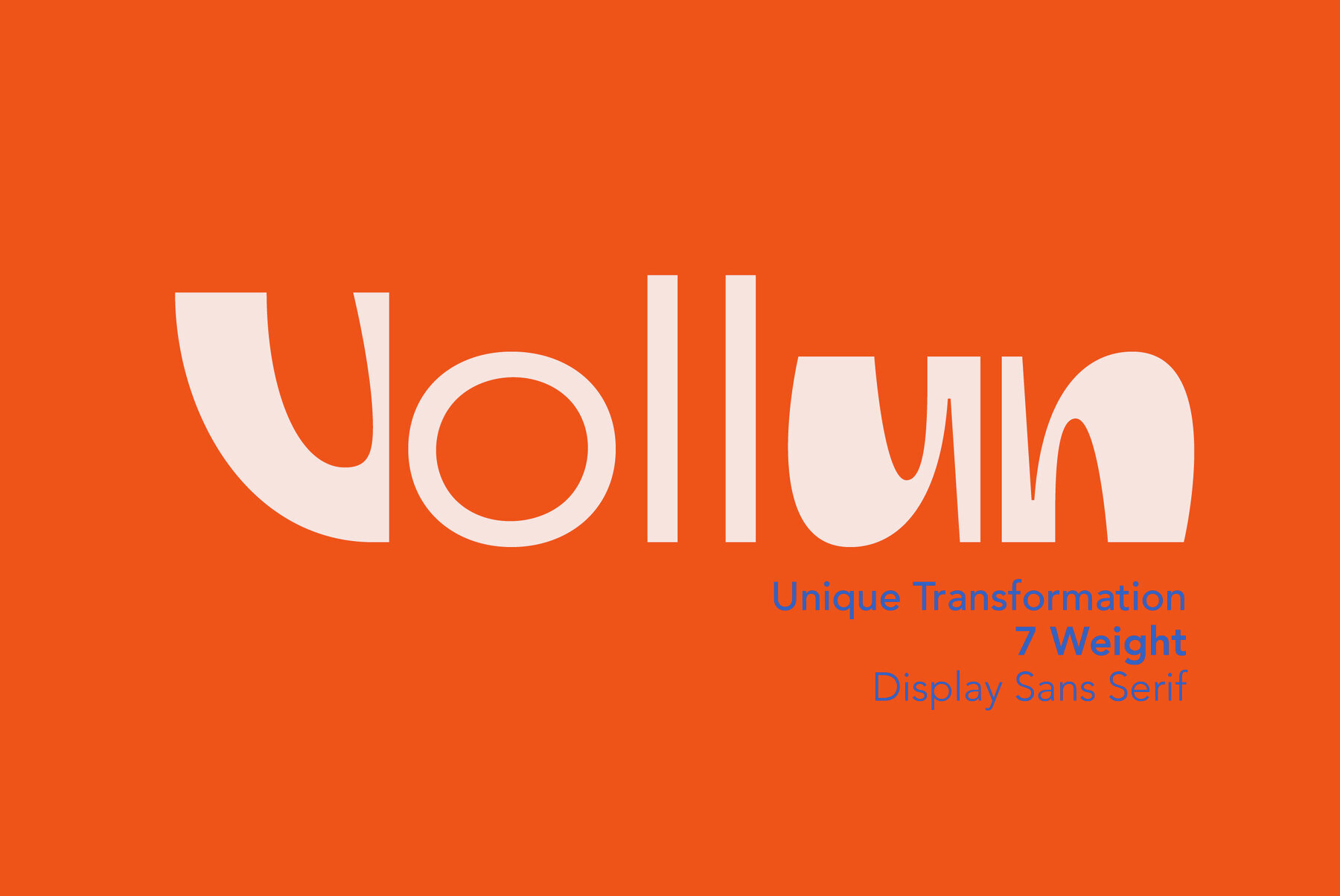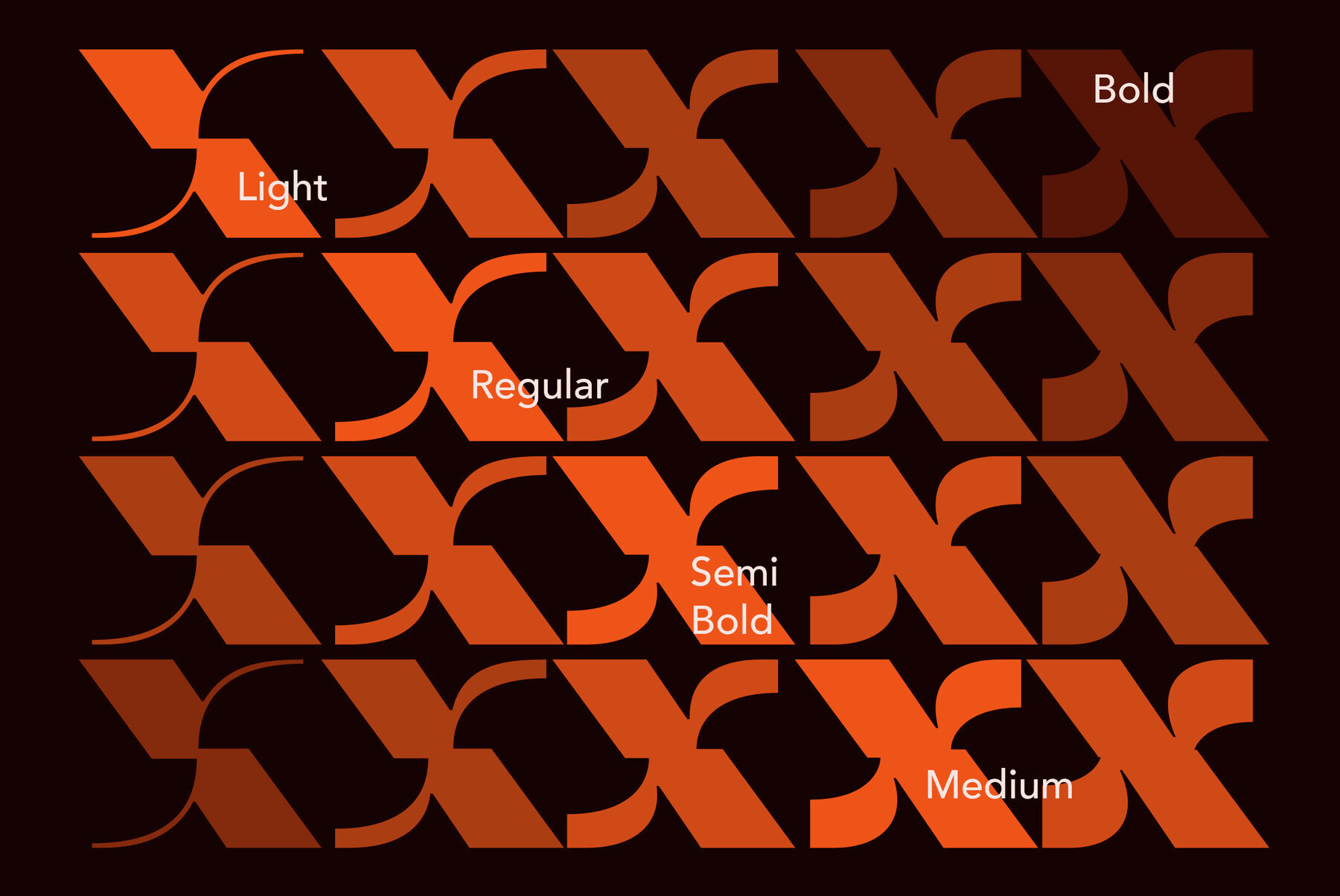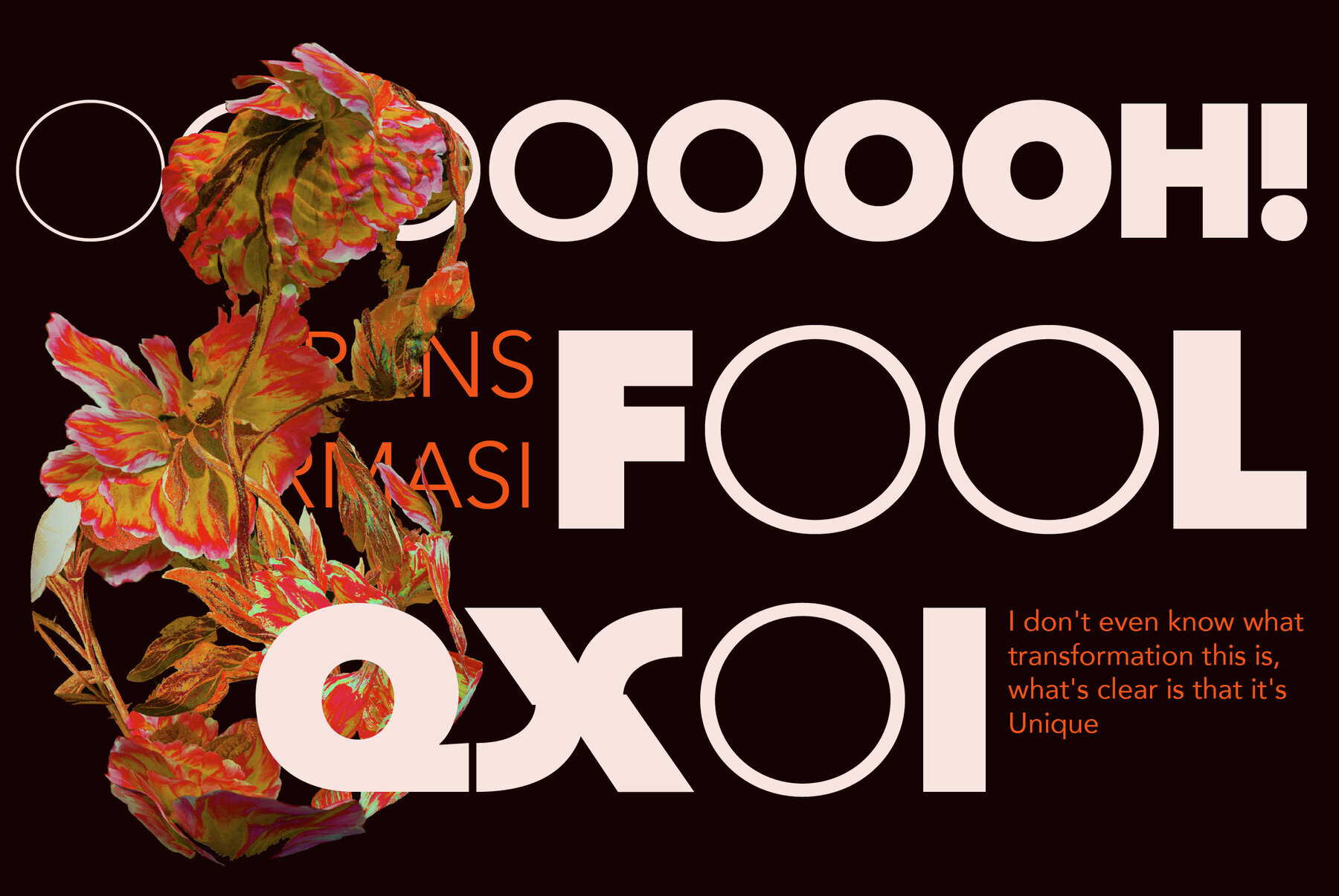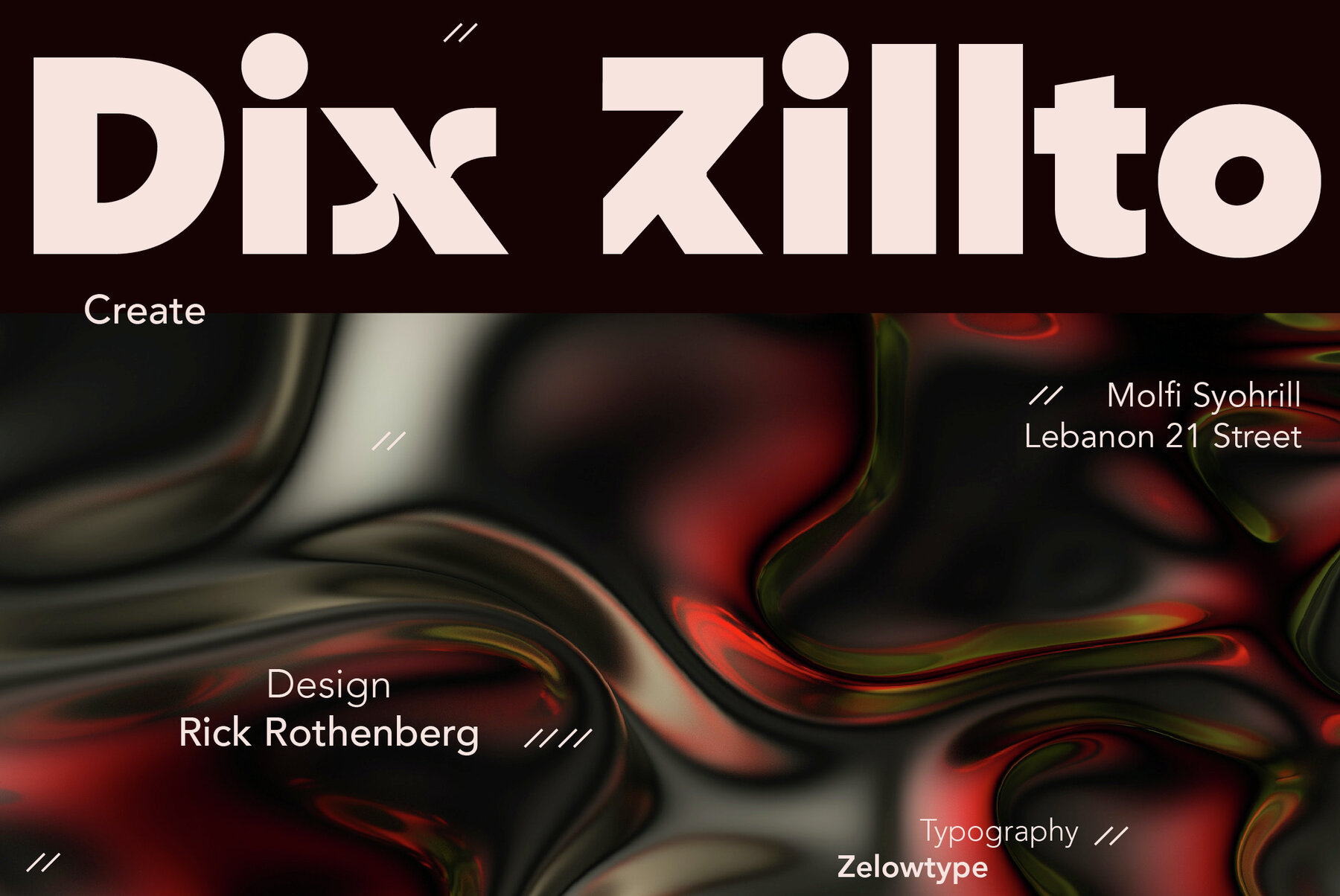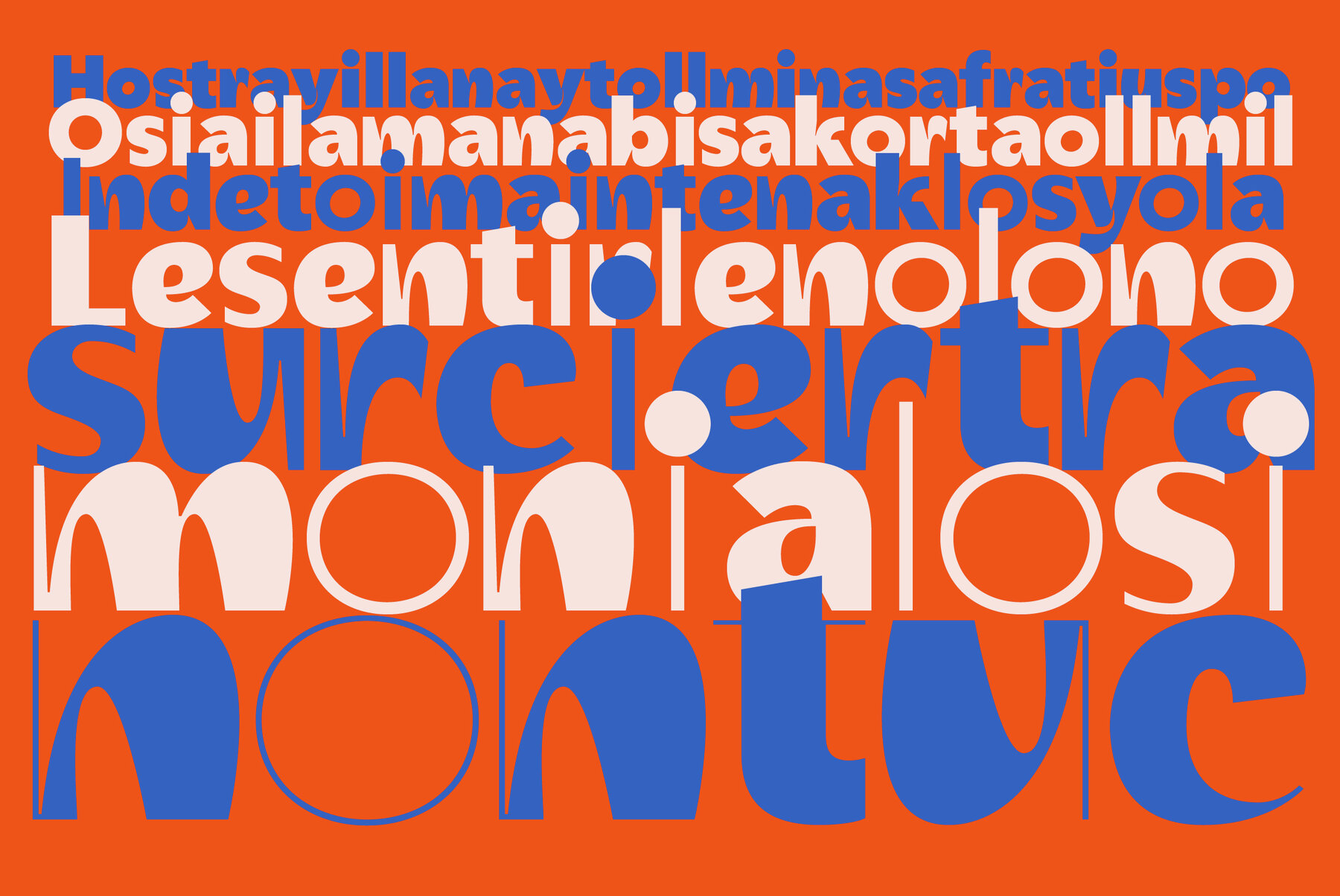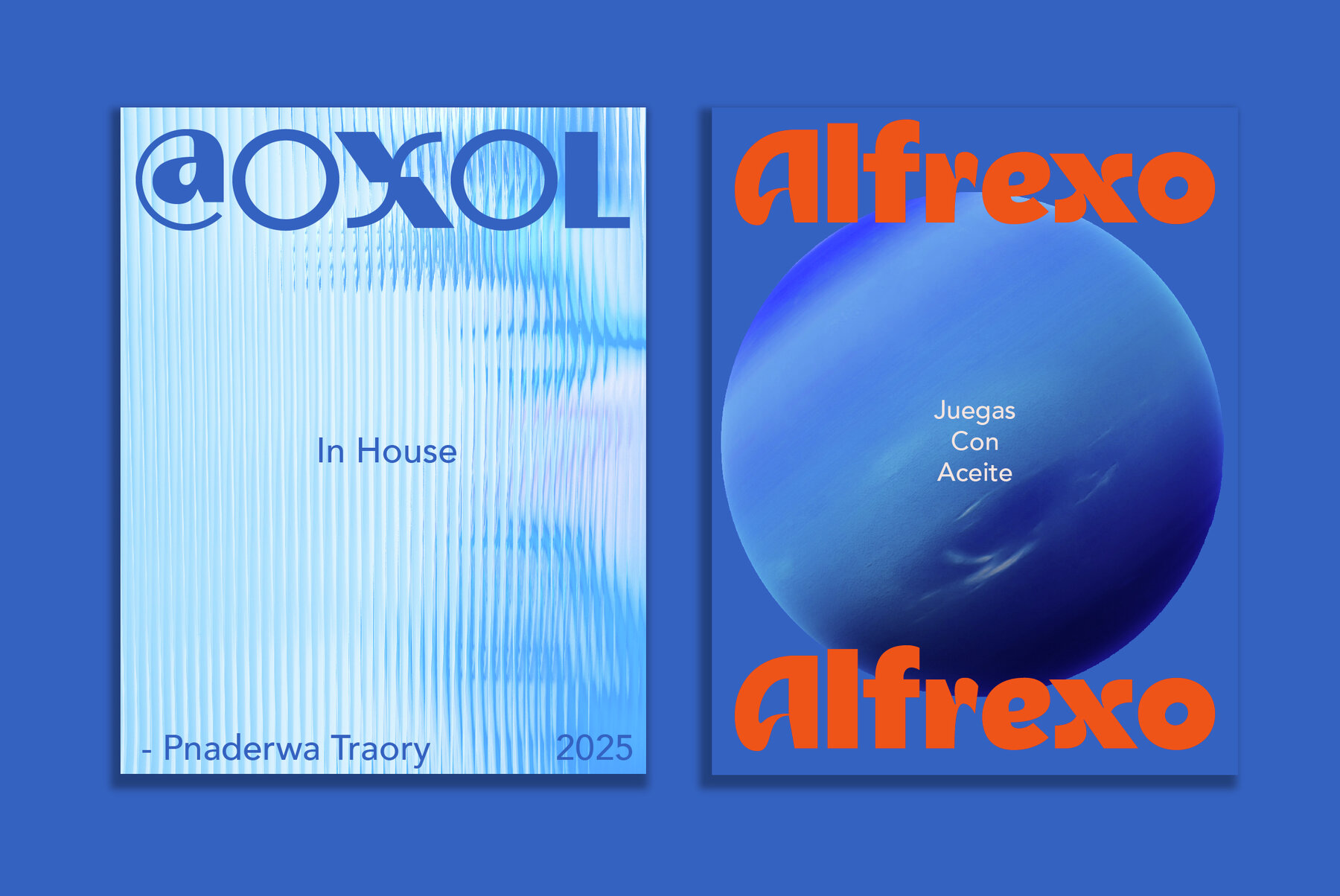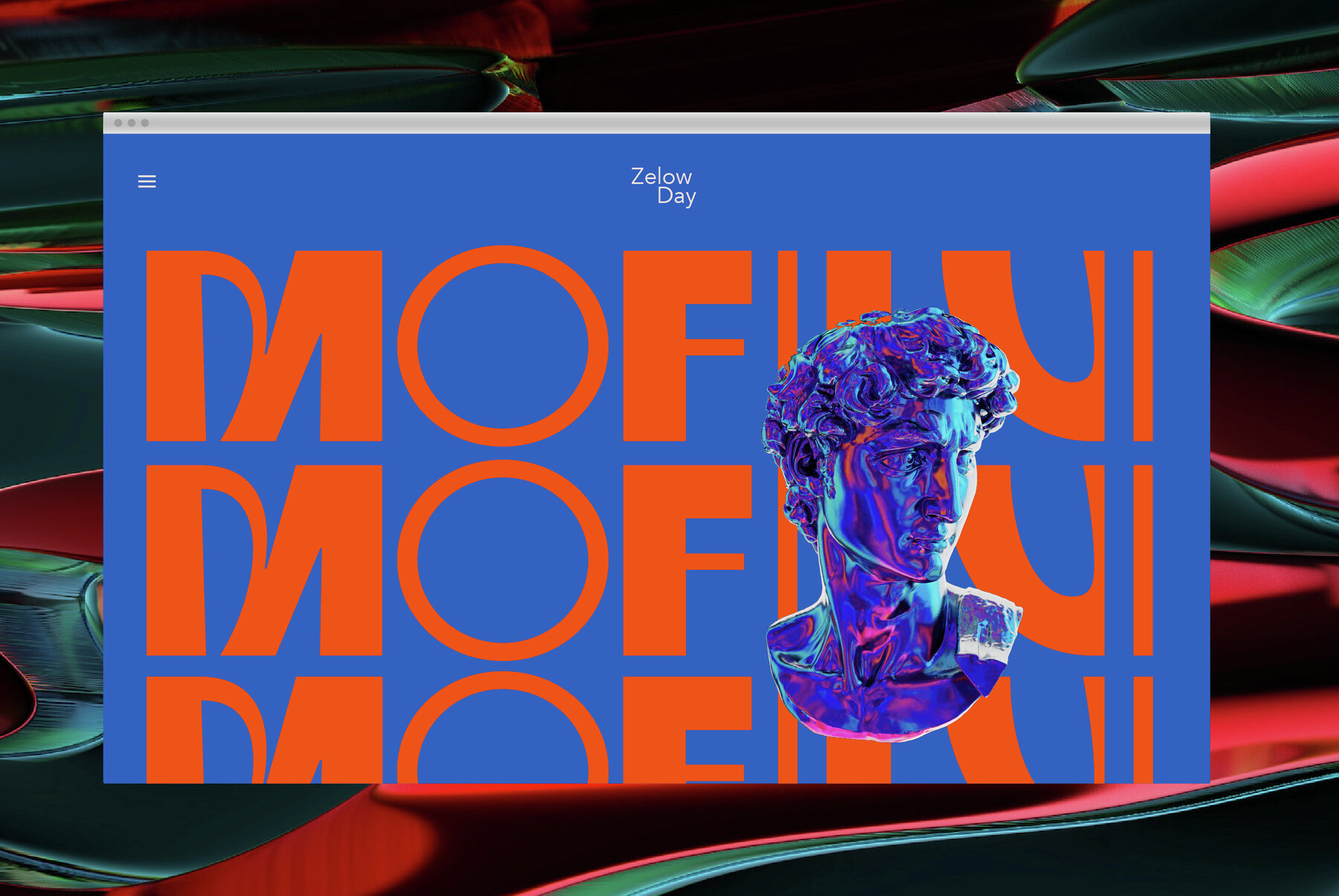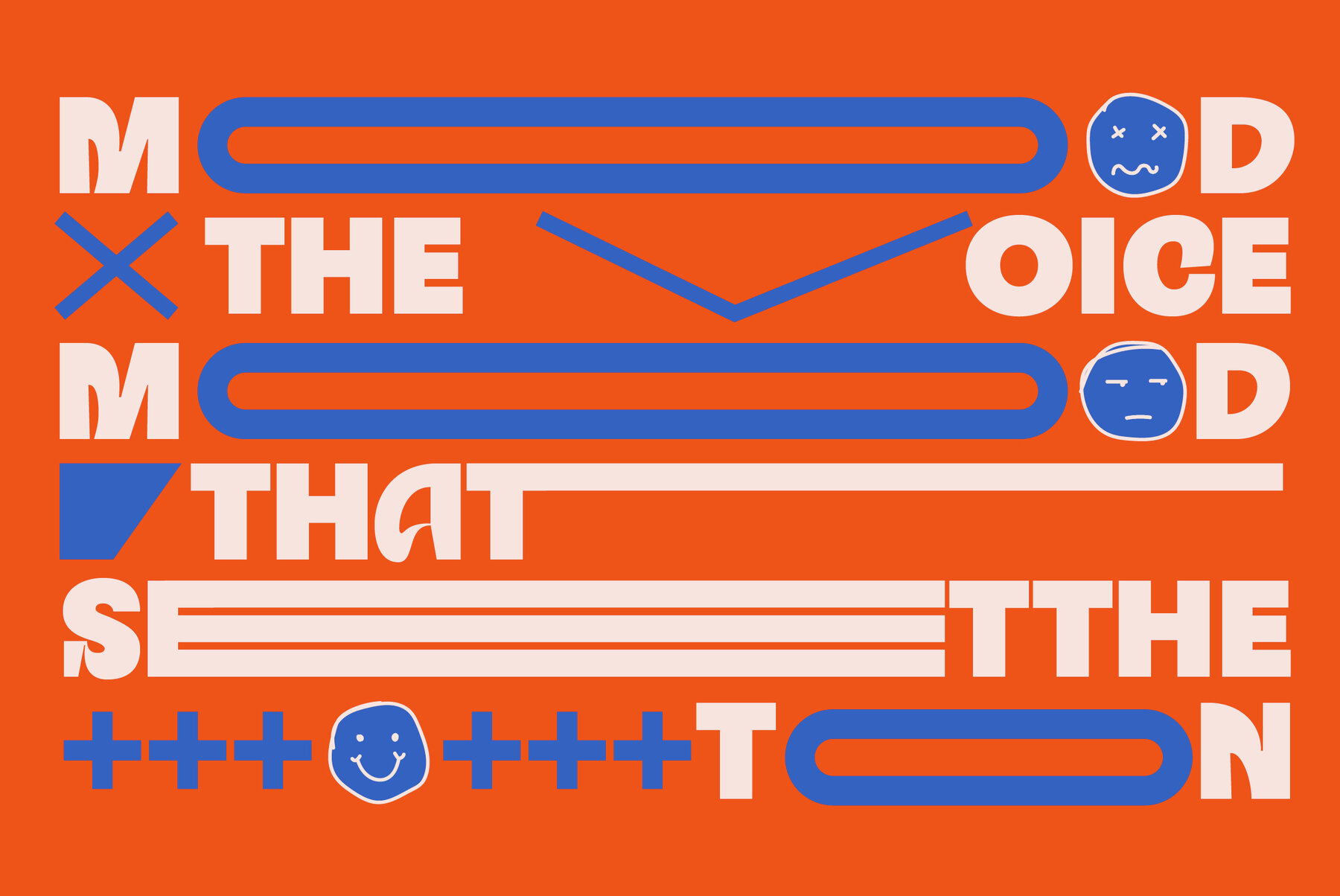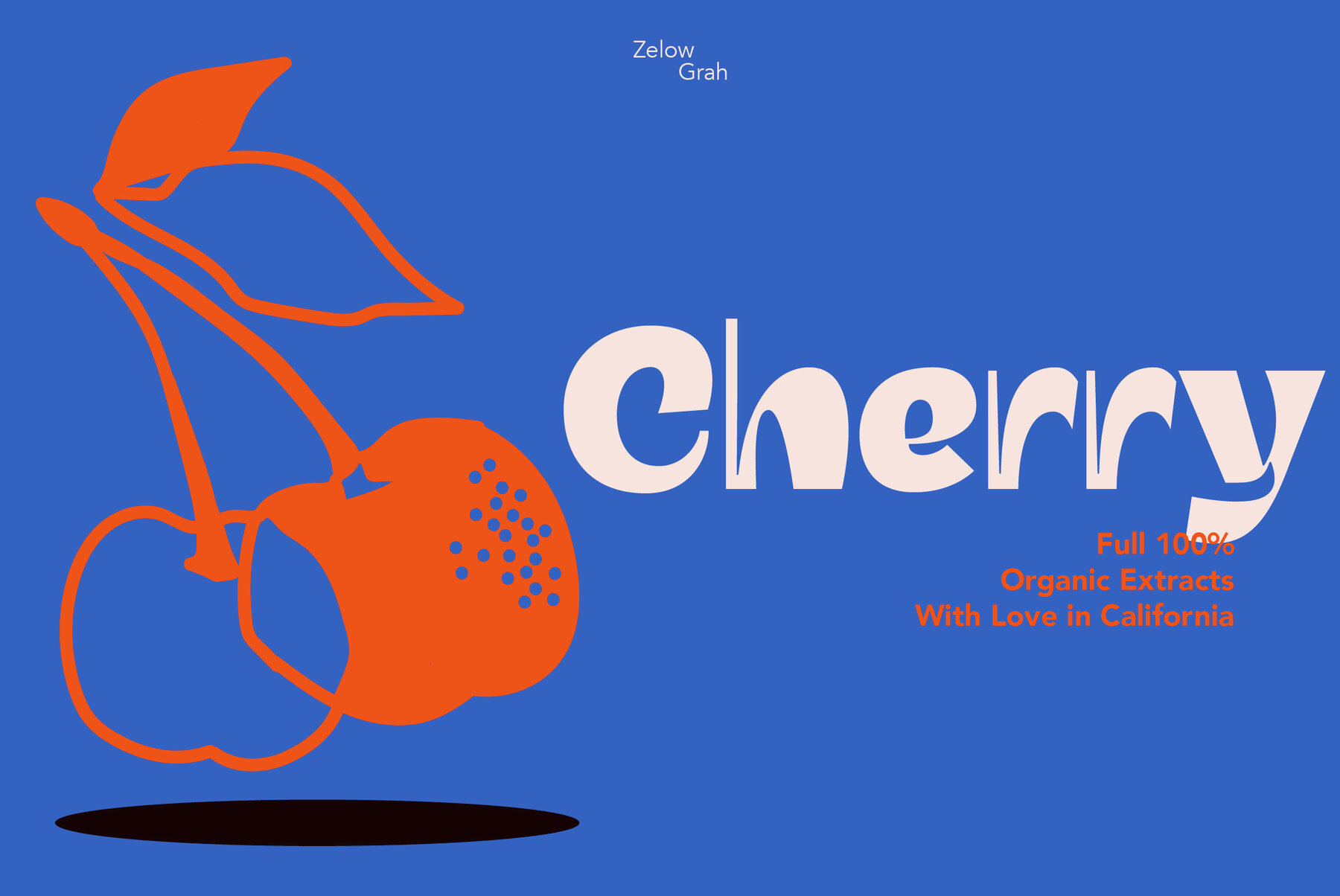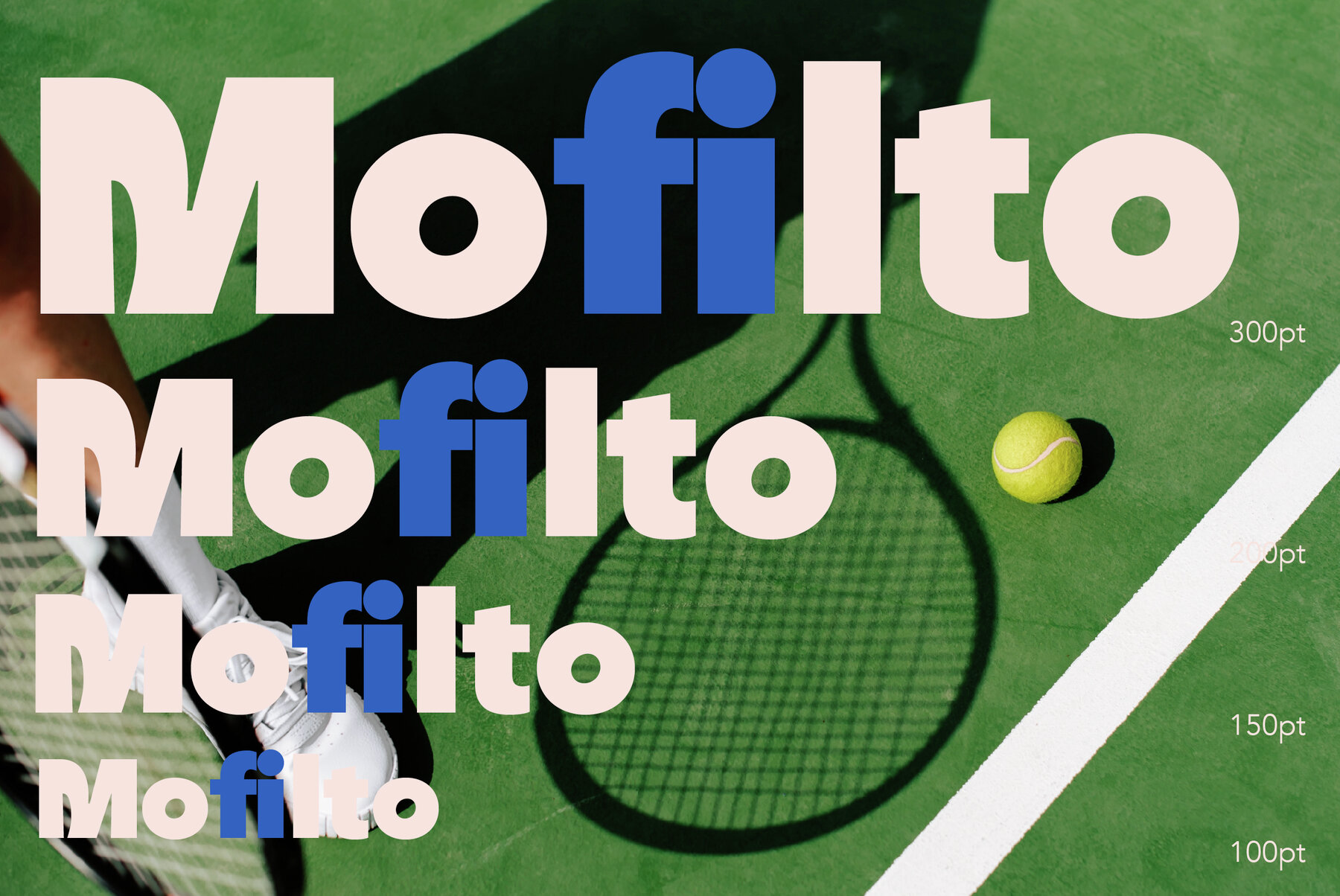
ZT Vollun Font
ZT Vollun is a work of awakening from my valley of boredom in making fonts, it is not only a transformation of thickness, but also in terms of theme, aura, shape and beauty. Maybe this is a superstition of adulthood and also as we get older, our taste in cigarettes can change too. And the taste of the coffee is also getting bitter, in fact there is no sugar anymore, but the enjoyment is increasing. ZT Vollun consists of seven weights, starting from the thin one with curves combined with thin strokes, offering a playful aura, to the thickest one with a firm design that will present a thick modern atmosphere. Whether you're working on a branding project, an editorial project, or any other graphic project, ZT Vollun is the perfect choice for a modern, elegant look or any design vibe you can get your hands on.